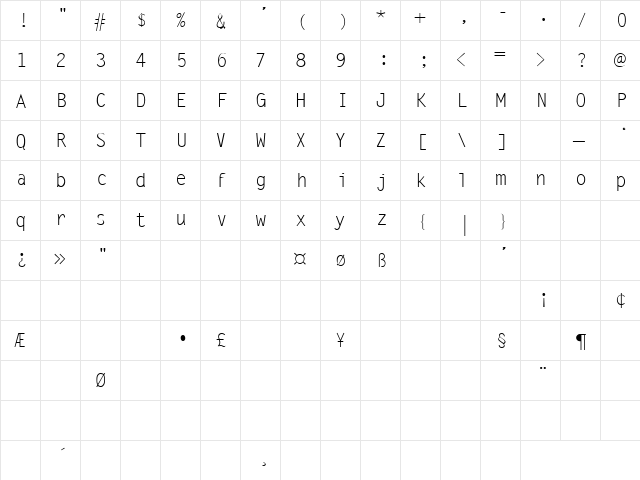
Celebration Day 3 Regular
Design Context for Celebration Day 3 Typeface
Celebration Day 3 takes a measured approach to typography — its balanced proportions and neutral character make it a reliable workhorse for both digital and print work.